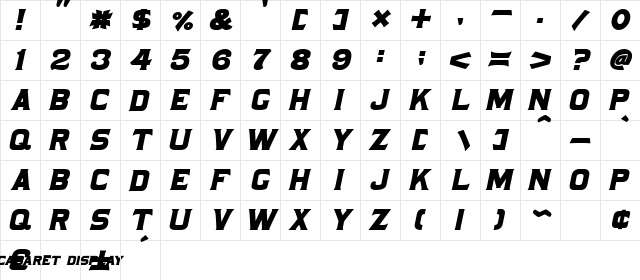
Cabaret Display Italic Font Preview
Cabaret Display Italic
Cabaret Display Italic Font Details
Design Context for Cabaret Display Typeface
Cabaret Display brings ornamental detail and strong personality to headlines and identities, where visual impact matters more than quiet functionality. The slanted form adds forward momentum and visual energy.
Font Pairing: Pair with a clean neutral sans-serif for body copy to let Cabaret Display's character lead without overwhelming the composition.
Pro Tip: Use Cabaret Display exclusively at display sizes — it was designed to be seen, not read at length. Let a neutral companion handle body copy.